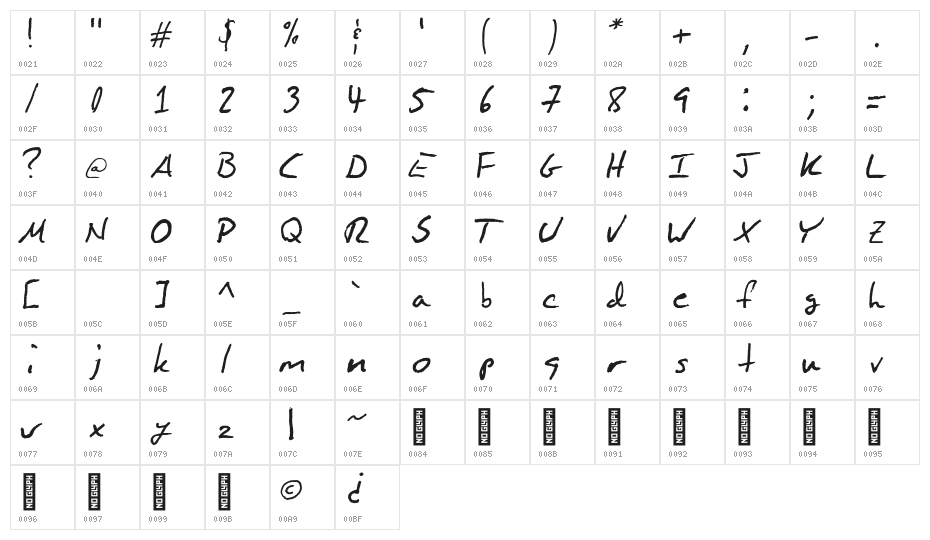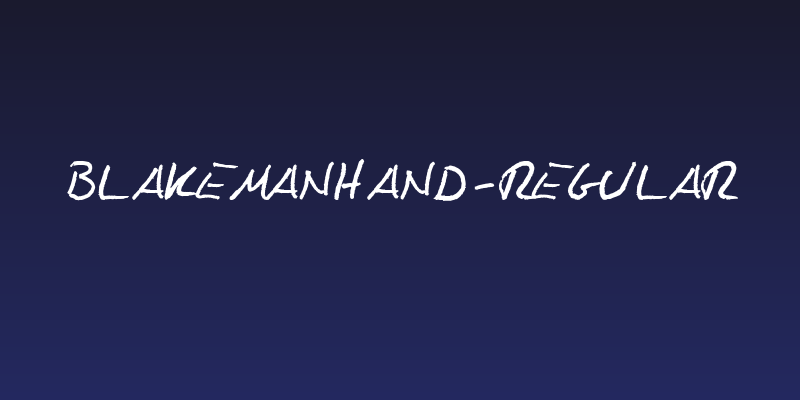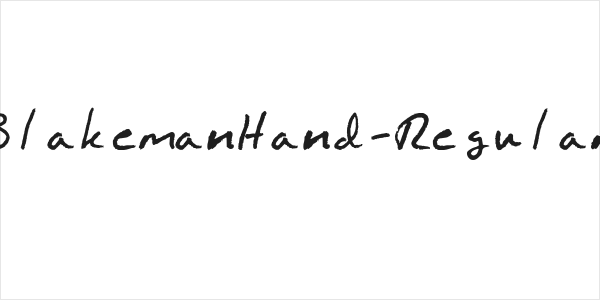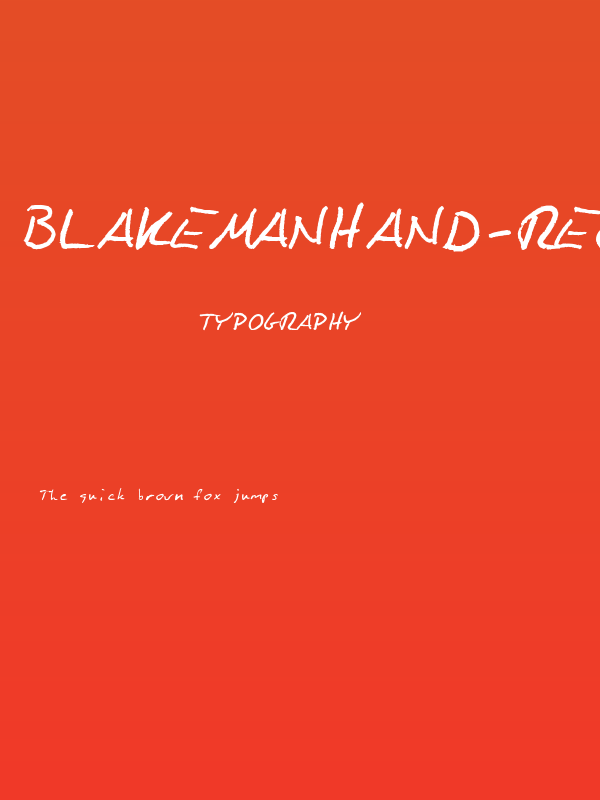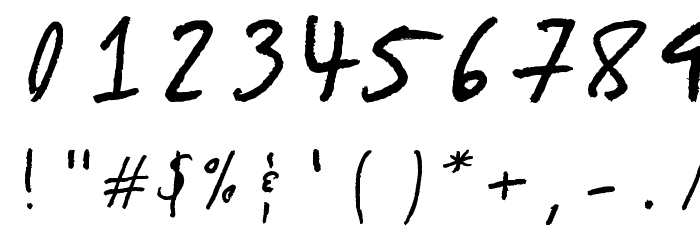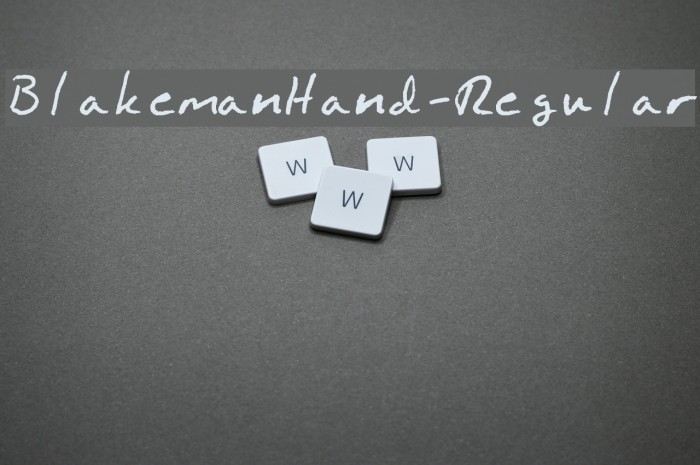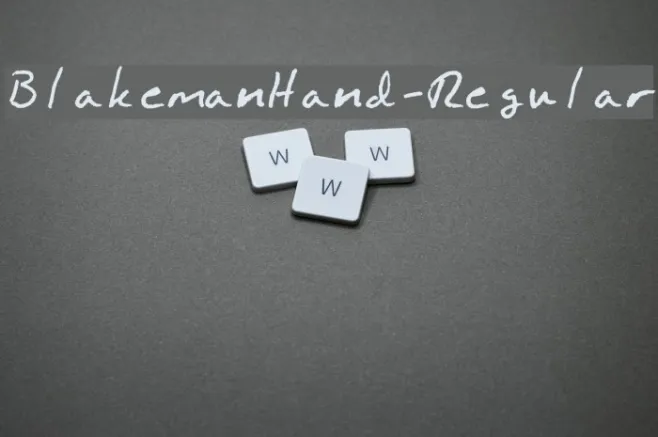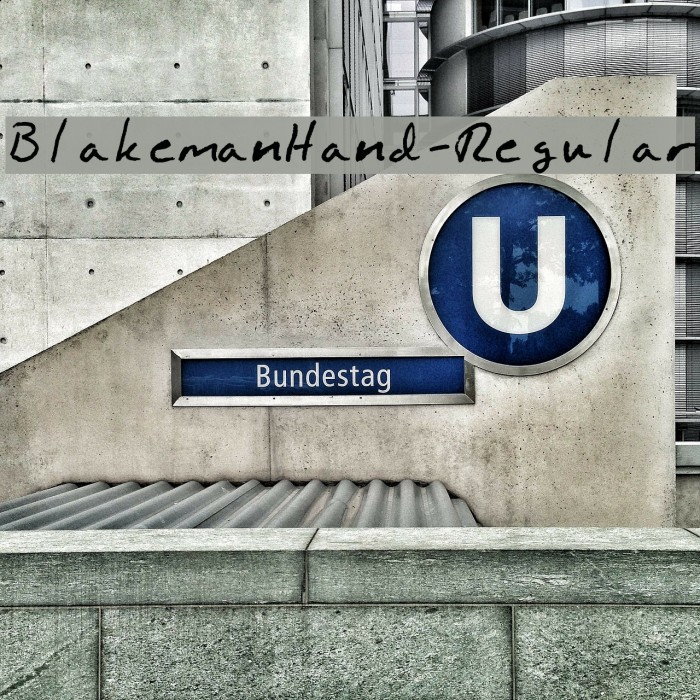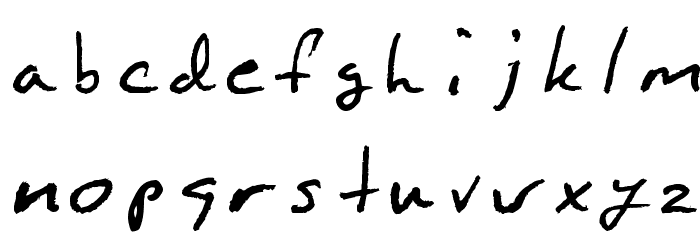
BlakemanHand-Regular Font
BlakemanHand-Regular Description
This font exudes a casual, handwritten style, characterized by its fluid and organic strokes. The letters vary slightly in size and angle, mimicking the natural imperfections of handwriting. The uppercase letters are bold and prominent, while the lowercase letters maintain a consistent flow, enhancing readability. Numbers and special characters follow the same handwritten aesthetic, adding a personal touch to any text. The overall appearance is informal yet legible, making it suitable for projects that require a personal or artistic flair.
| Overall Style | Casual, Artistic |
| Proposed Projects | Ideal for personal notes, invitations, greeting cards, and artistic projects that benefit from a handwritten touch. |